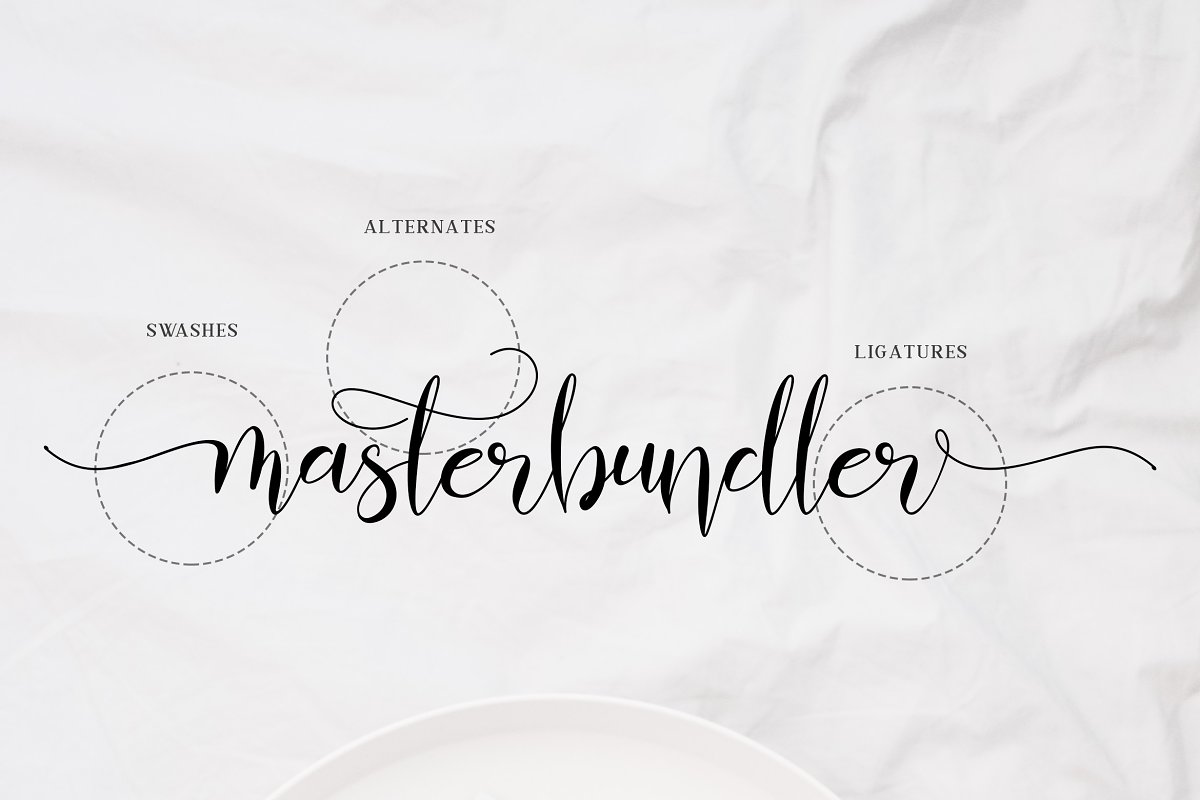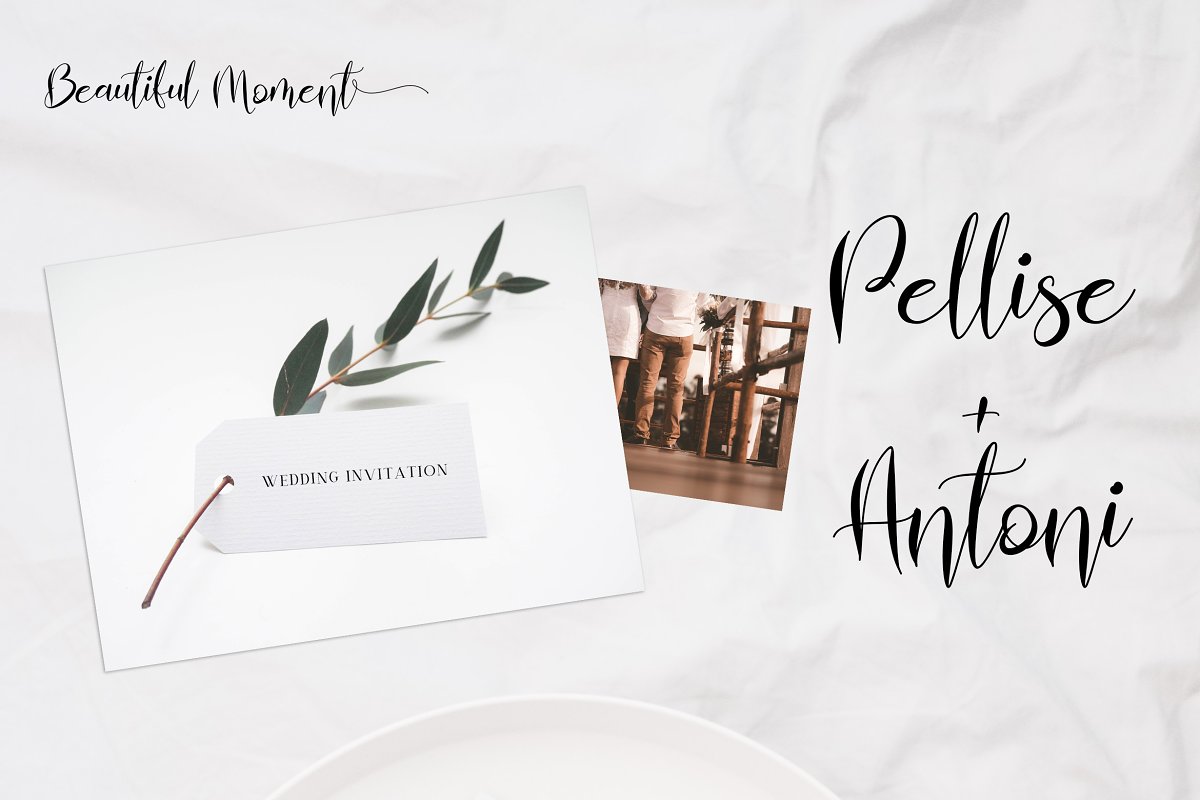
Almahira Script Font
Almahira Script Font – Free Demo
A modern script calligraphy typeface. If you want to create elegant stationery, gorgeous social media designs or invitations, or want to create amazing brands – this font instantly provides everything you need in one pack. Introducing Almahira Font. It is was designed by Rometheme. Almahira Script Font is a modern calligraphy typeface, beautiful and luxurious. This elegant and beautiful font is stylish and versatile so you can use in a plethora of designs in both digital and print applications.
Almahira font is the best choice for your professional design projects, including : signature, watermark on photography, quotes, album cover, book cover, business card, logo, branding, magazines, social media, advertisements, product designs, and many other design project.